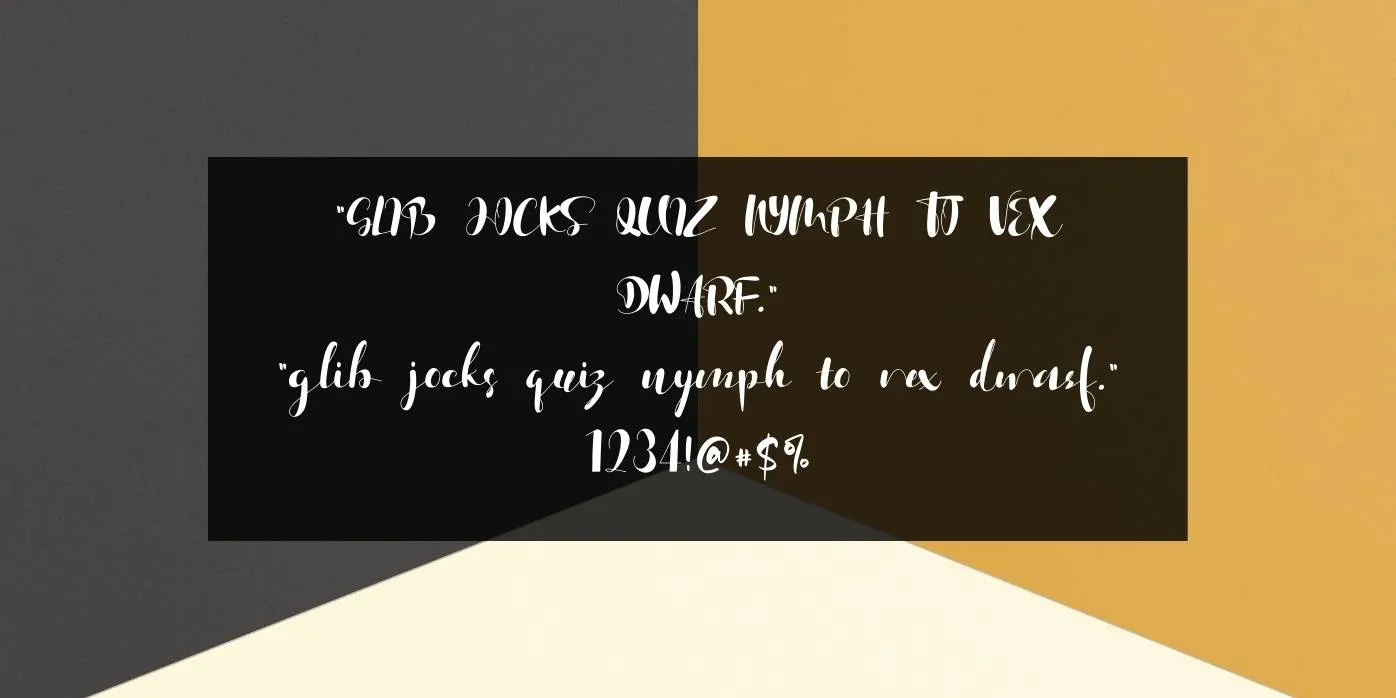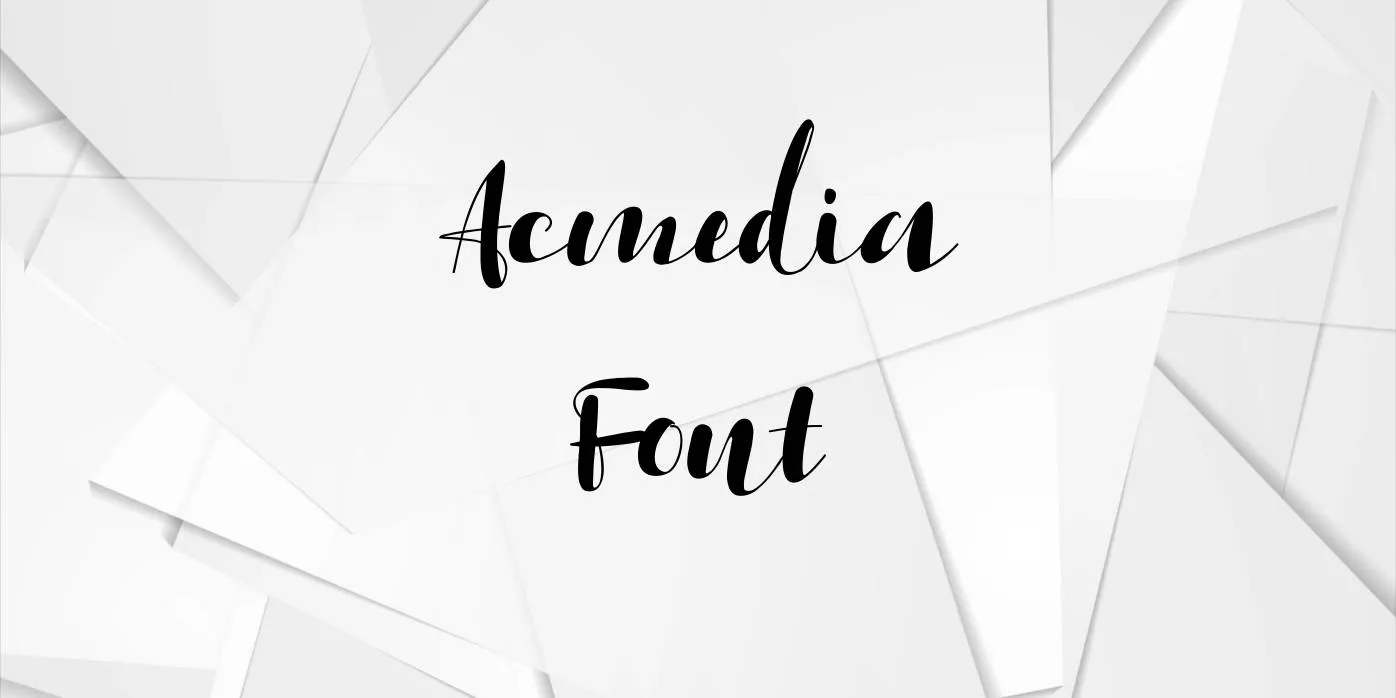
Acmedia Font
Acmedia Font belongs to the script font family. The main designer of this family was 177 Studio. It has a total of 8 weights, ranging from light to black. The design is characterized by its unique and stylish curves.
The font is perfect for headings and logos. This stunning font is available in both TTF and OTF formats. It supports Latin, Cyrillic, and Greek character sets. The license for this font is allowed used for personal and commercial use.